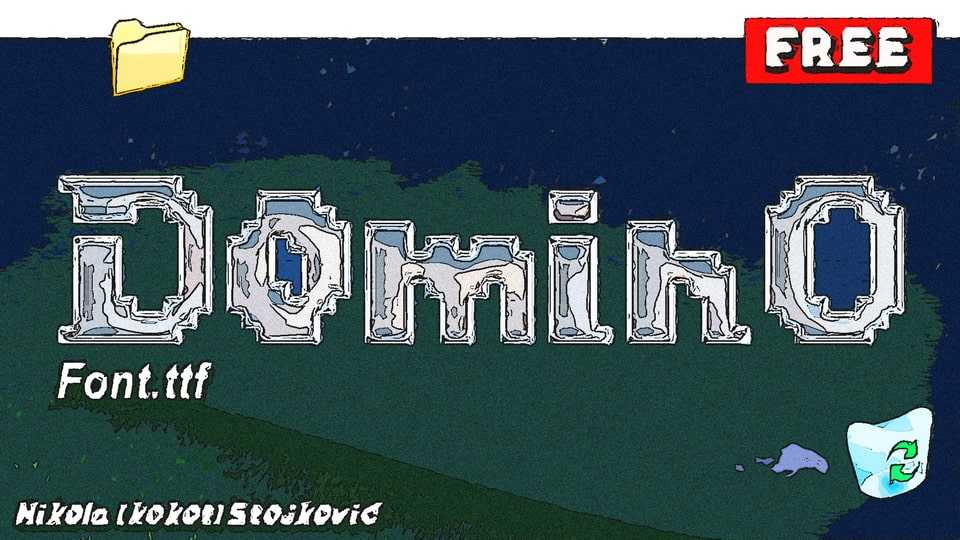
Download Domino font, a pixel typeface that embraces the nostalgic charm of early digital graphics with its slightly irregular pixel structure and raw, hand-crafted feel.
Designer: Nikola (Kokot) Stojković